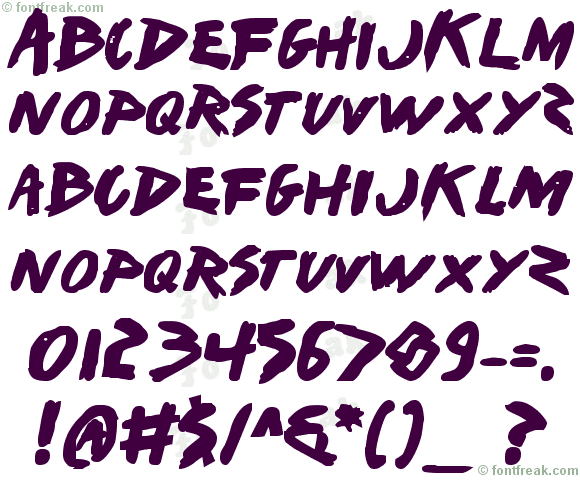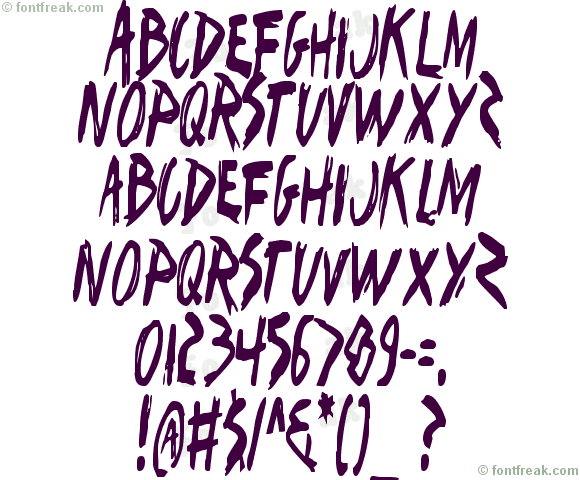
I Want My TTR! (Condensed)
I Want My TTR! (Shadow)
I Want My TTR! (Expanded)
I Want My TTR! (Bold)
I Want My TTR!
About I Want My TTR
The "I Want My TTR" font by Iconian Fonts is a captivating display typeface that exudes a unique personality. As a condensed, bold typeface, it features a striking visual style characterized by its brush-like strokes and dynamic, uneven edges. The font's weighty strokes provide a robust presence, while the slight contrast in thickness adds a playful touch. With its expanded letterforms and distinctive shadow effects, "I Want My TTR" stands out as a versatile choice for various design applications.
This font is particularly well-suited for eye-catching movie posters, where its boldness can draw attention and convey a sense of excitement. It also works effectively for branding purposes, especially in the entertainment or creative industries, where an informal and artistic touch is desired. Additionally, its playful nature makes it a great fit for social media graphics and promotional materials aimed at younger audiences. Graphic designers will appreciate its ability to make statements without overwhelming the viewer, while small business owners can leverage its unique style for restaurant menus or event flyers.
In conclusion, the "I Want My TTR" font stands out due to its distinctive brush-lettered appearance, making it an excellent choice for anyone looking to make an impact with their typography. For those interested in adding this unique style to their collection, the "I Want My TTR font free download" is readily available, inviting creativity and innovation in every project.